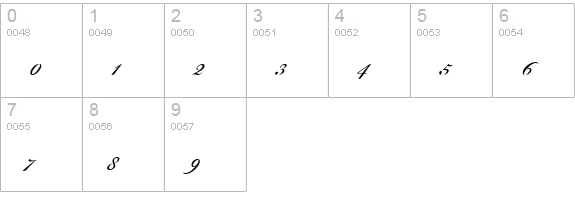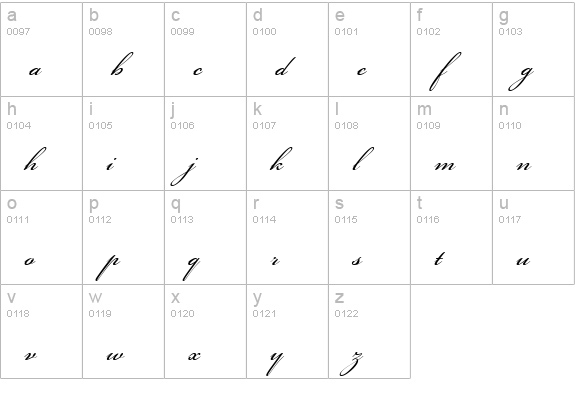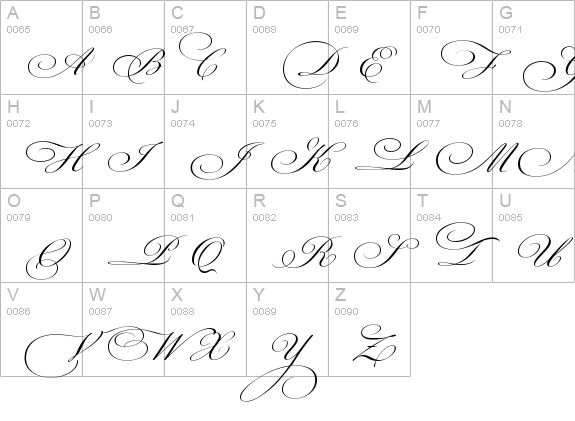
Bickham Script Three font is a stunningly elegant and sophisticated script typeface that exudes charm and refinement. Its delicate and flowing cursive strokes make it perfect for adding a touch of luxury to any project. The ornate details and graceful curves of Bickham Script Three make it a versatile choice for invitations, stationery, branding, and more. What makes Bickham Script Three even more appealing is that it is available for free download at FontsMarket.com. This means you can easily access this beautiful font and use it in your designs without any cost. Don't miss out on the opportunity to enhance your projects with the timeless beauty of Bickham Script Three. Download it today and elevate your designs to the next level.